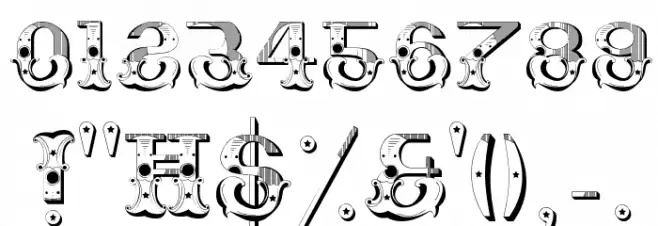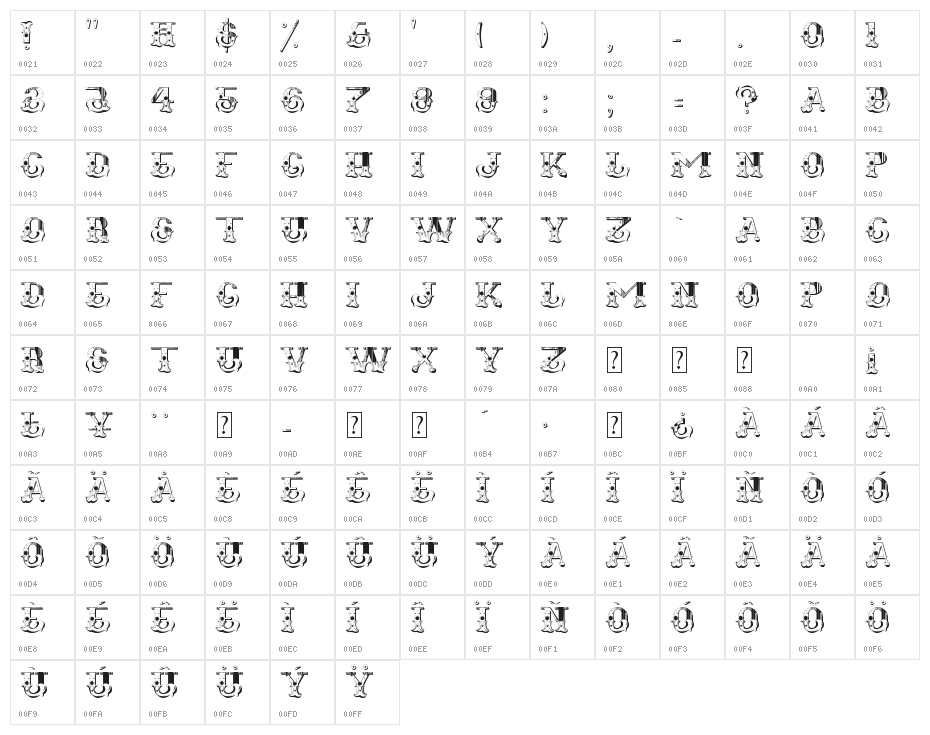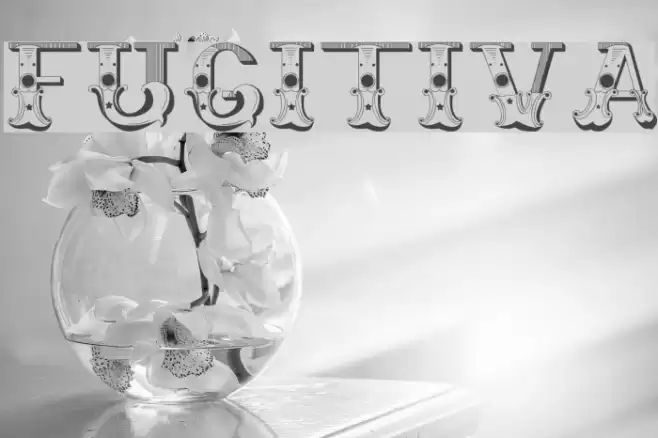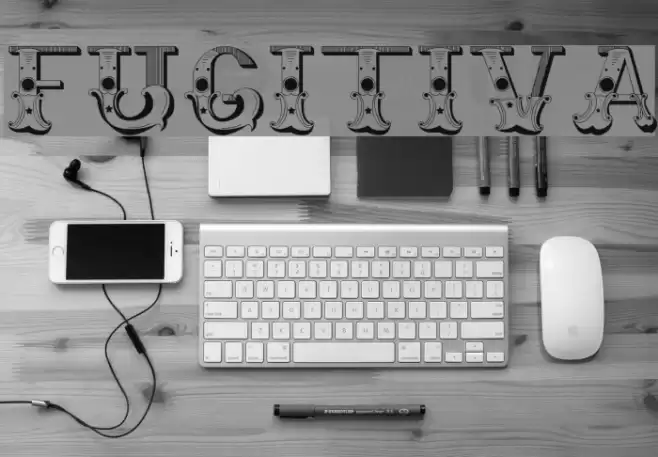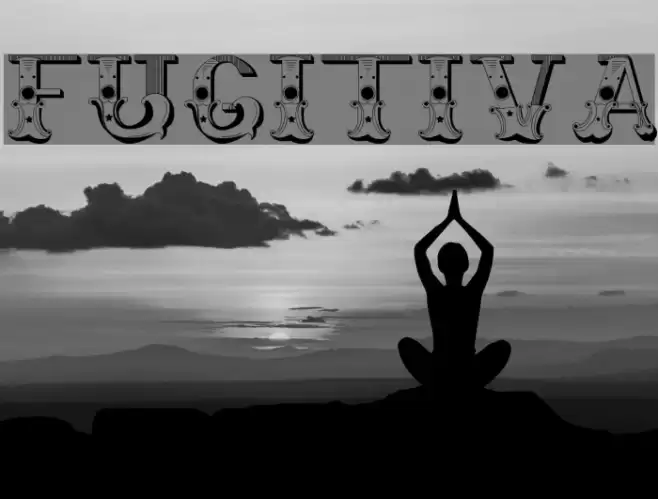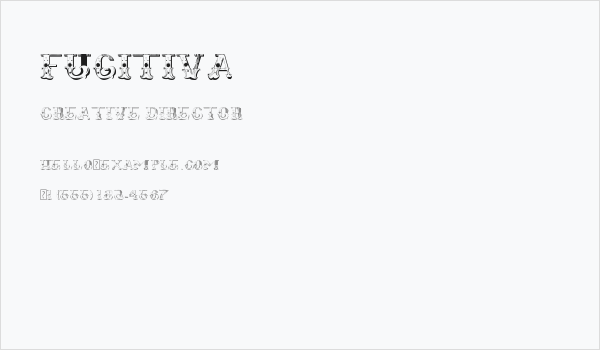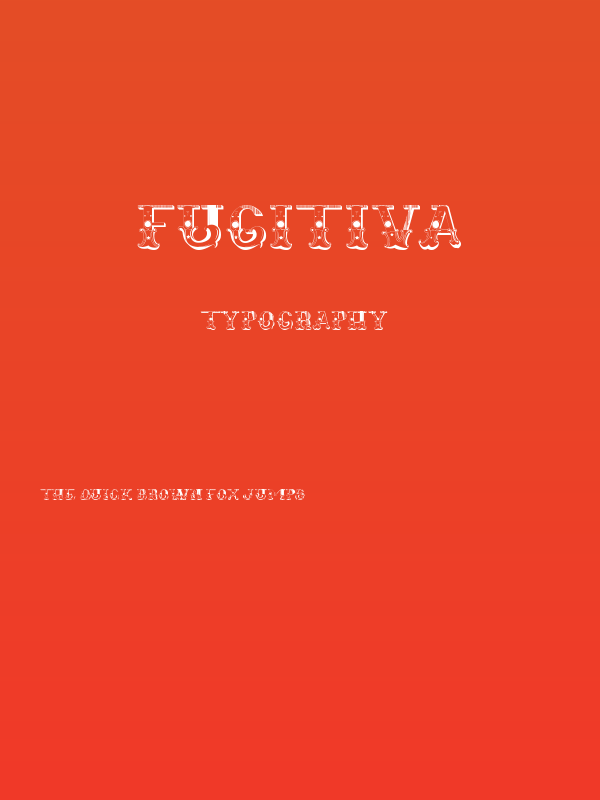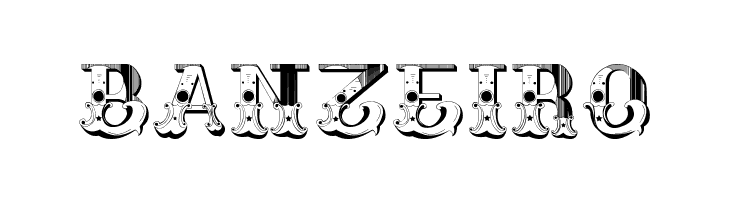
Fugitiva Font
Fugitiva Description
This font exhibits a highly decorative and ornate style, characterized by intricate patterns and embellishments within each character. The letters are bold and eye-catching, featuring a mix of thick and thin strokes that create a dynamic visual contrast. The design includes unique flourishes and details that give it a vintage and theatrical appearance, reminiscent of old circus or carnival posters. The font's elaborate style makes it stand out, making it suitable for projects that require a touch of nostalgia and flair.
| Proposed Projects | Ideal for use in posters, signage, branding, and any project that seeks to capture a vintage or theatrical aesthetic. |